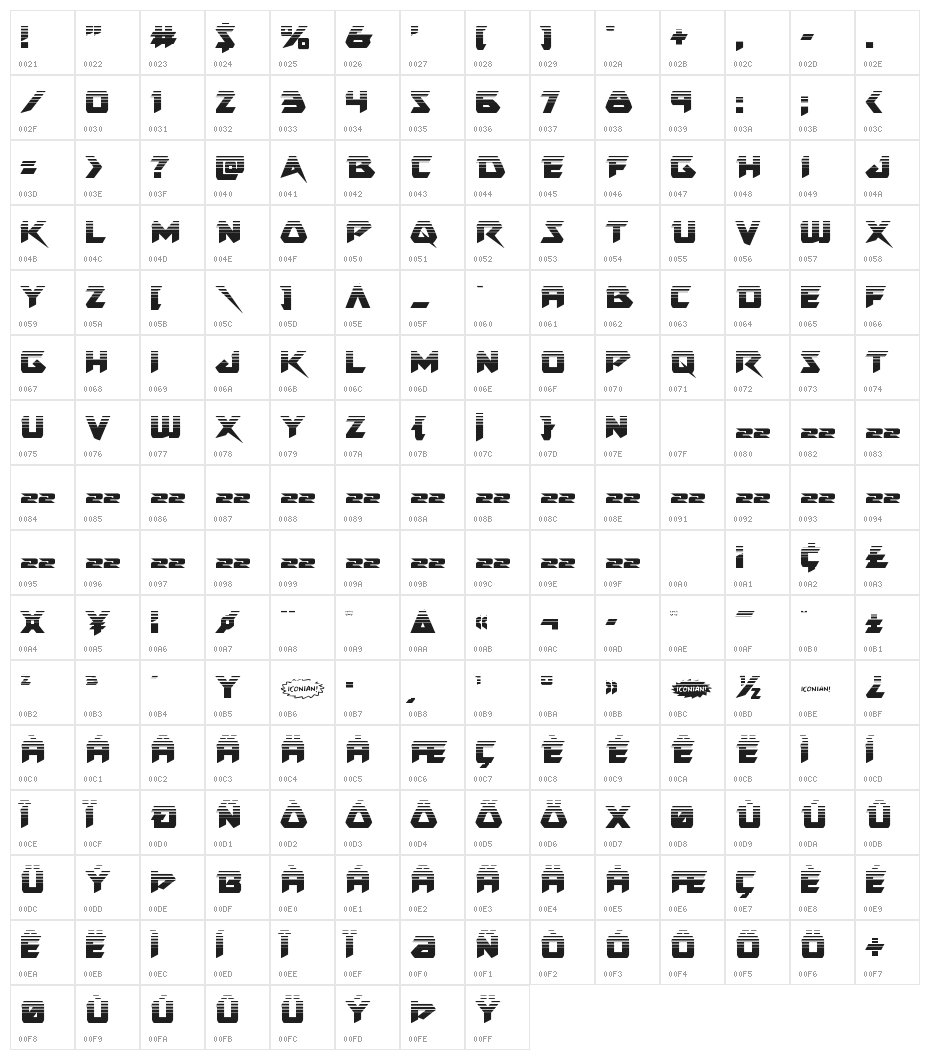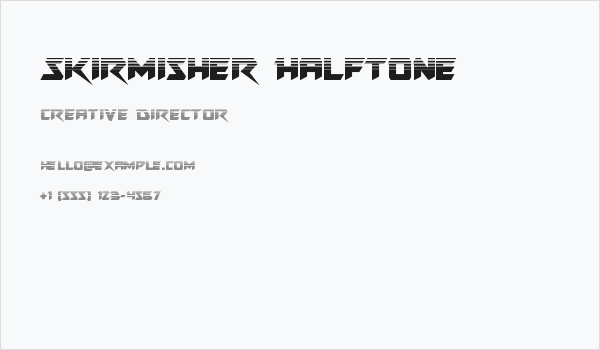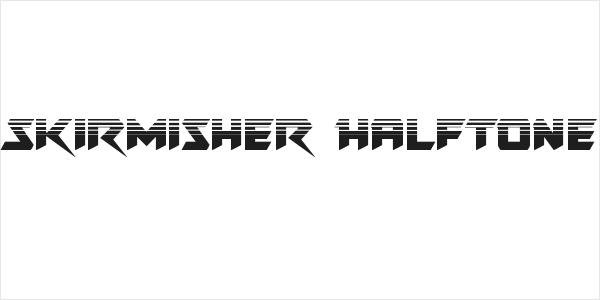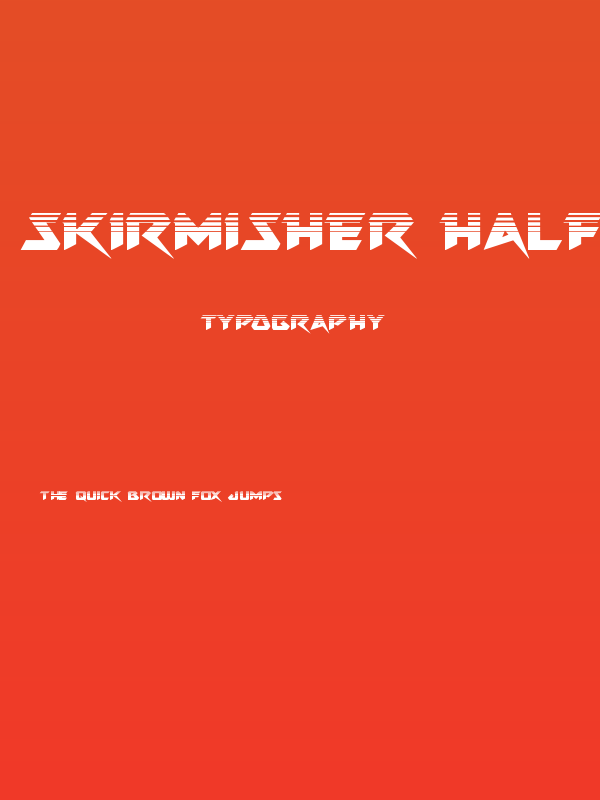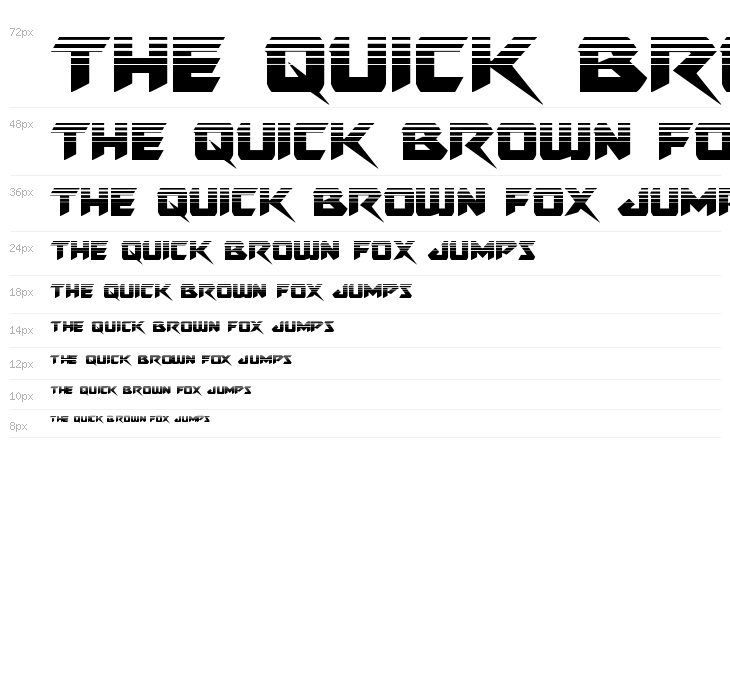
Skirmisher Halftone Font
Skirmisher Halftone Description
This font features a bold, angular design with a futuristic and aggressive aesthetic. The characters are constructed with sharp edges and geometric shapes, giving them a dynamic and striking appearance. The use of horizontal lines and cut-out sections adds a sense of movement and energy. The uppercase letters are particularly prominent, with each character exhibiting a unique, stylized form. The numbers and special characters maintain the same bold and edgy style, ensuring consistency across the font. This font is ideal for projects that require a modern, impactful look.
| Proposed Projects | Suitable for video game titles, sci-fi movie posters, tech branding, and sports team logos. |